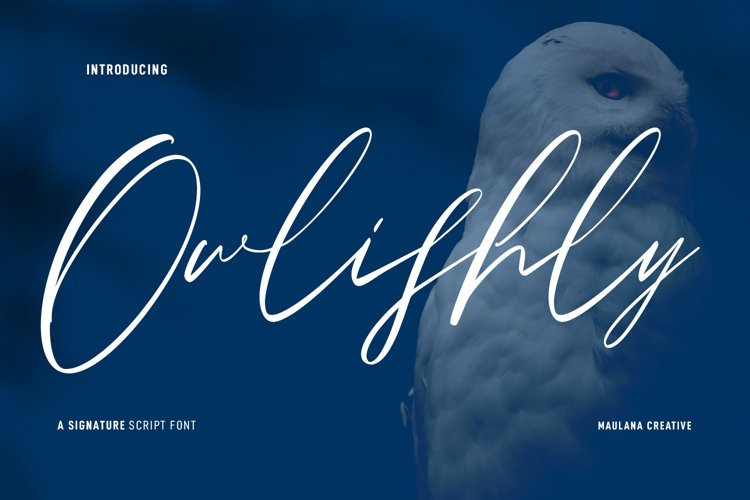
Owlishly Font
Owlishly FontOwlishly is an expressive modern script font. With high contrast stroke, fun character with a bit of ligatures and alternates. To give you an extra creative work. Owlishly font support multilingual more than 100+ language. This font is good for logo design, Social media, Movie Titles, Books Titles, a short text even a long text letter and good for your secondary text font with sans or serif. Make a stunning work with Owlishly font.